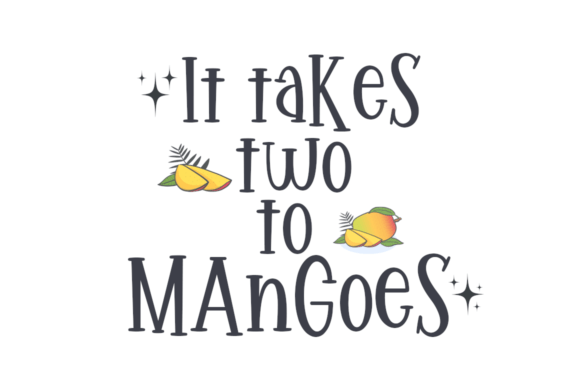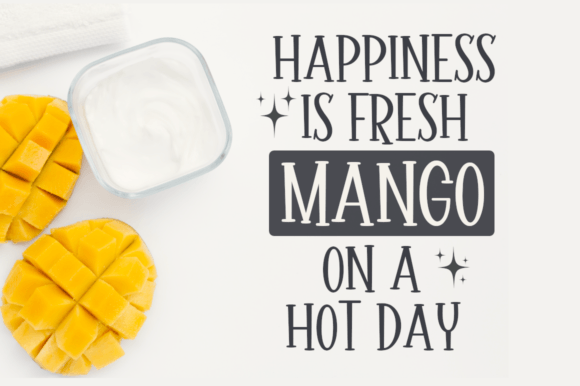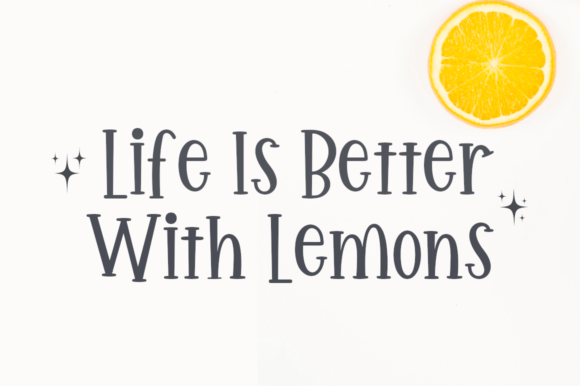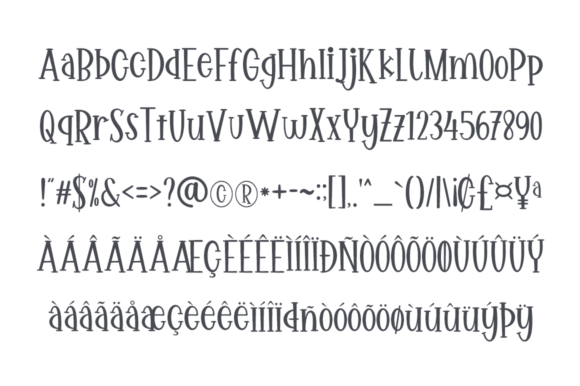
Introduction to Mango Farmhouse Font
Mango Farmhouse is a light, fun, and bouncy font that’s perfect for all your summer projects.
Fall in love with it and use it to create lovely designs .
Key Features of Mango Farmhouse Font
Why Choose Mango Farmhouse Font?
Mango Farmhouse Font offers exceptional quality and versatility, making it a valuable addition to your design toolkit. Whether you’re creating for personal projects or commercial use, Mango Farmhouse Font delivers professional results.